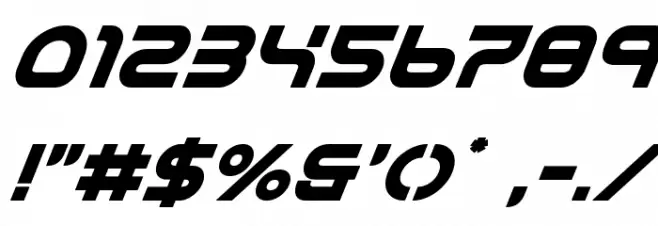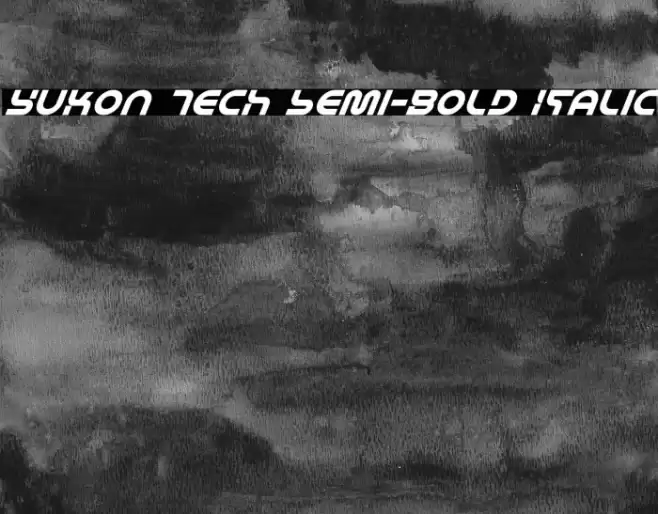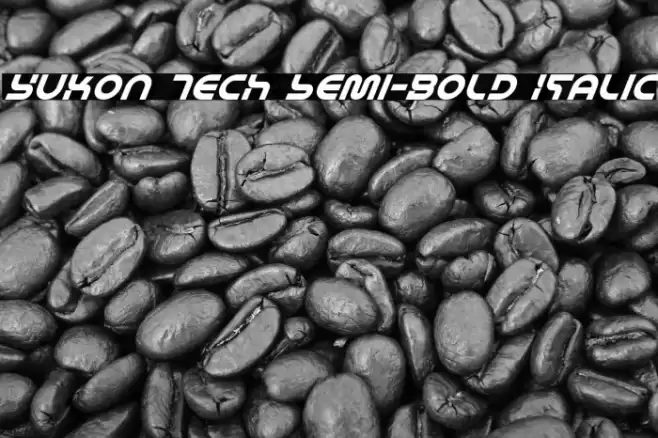
Yukon Tech Semi-Bold Italic Font
Yukon Tech Semi-Bold Italic Description
This font features a futuristic and dynamic design, characterized by its semi-bold weight and italicized style. The letters are crafted with a sleek, modern aesthetic, incorporating sharp angles and smooth curves that convey a sense of motion and technology. The uppercase and lowercase characters maintain a consistent style, with unique elements such as slanted terminals and geometric shapes. The numerals and special characters follow the same design principles, ensuring uniformity across all glyphs. This font's distinct appearance makes it suitable for projects that require a contemporary and tech-savvy look.
| Proposed Projects | Ideal for technology branding, sci-fi posters, video game titles, and modern advertising. |